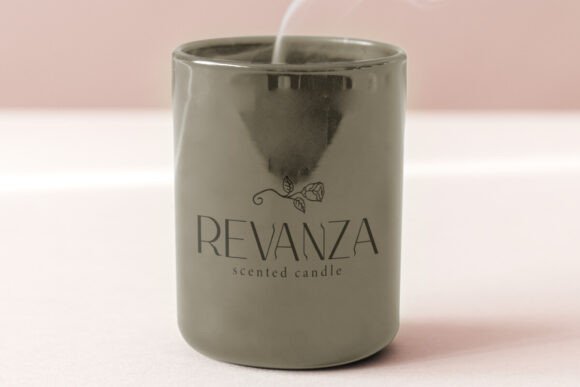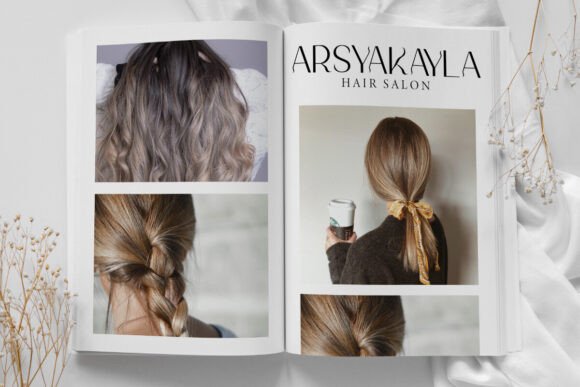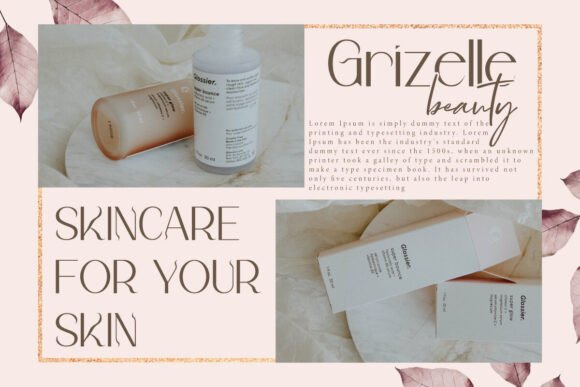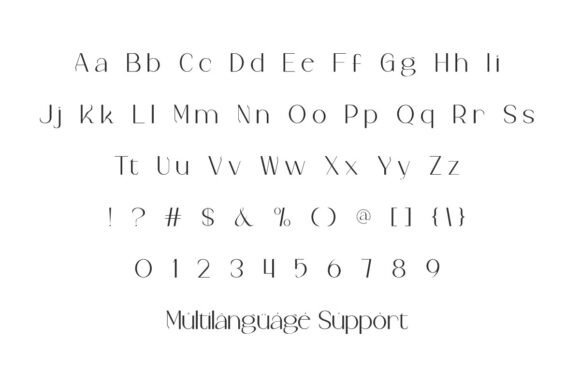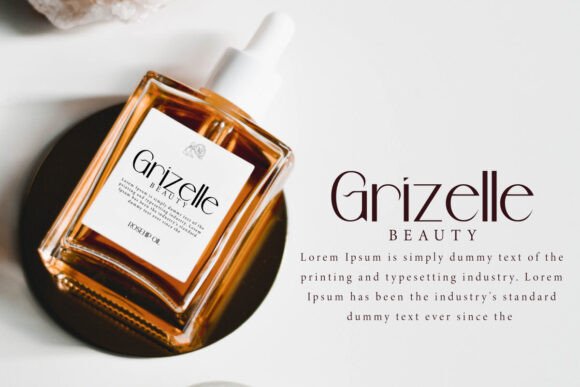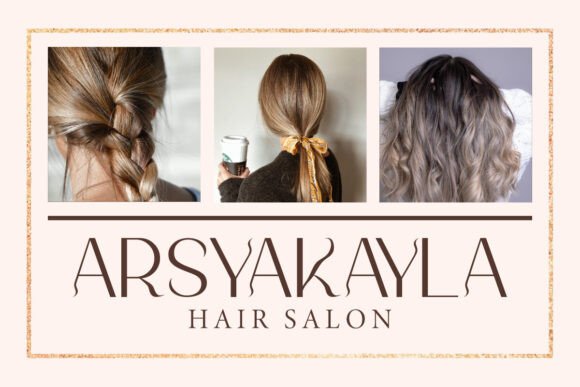
Discover the Timeless Elegance of Typography
Have you ever found yourself staring at a beautifully crafted design, wondering what makes it stand out from the crowd? It’s often the small details that make a big impact – in this case, the font used. For designers, finding the perfect font can be a game-changer, elevating a project from good to great. That’s where Belirium Font comes in – a stunningly elegant serif display font that’s sure to leave a lasting impression.
Belirium Font is more than just a font – it’s a key to unlocking the perfect design. With its luxurious and minimalist style, it’s perfect for a wide range of projects, from brand image to product packaging. Whether you’re a seasoned designer or just starting out, Belirium Font is an invaluable addition to your toolkit.
Belirium Font Key Features
- Character Set: The font includes a comprehensive set of characters, including uppercase and lowercase letters, numerals, punctuation marks, and special characters, making it suitable for various languages.
- Unique Characteristics: The font features a distinctive, hand-drawn design with subtle imperfections, giving it a unique and organic feel that sets it apart from other sans-serif fonts.
- Language Support: Belirium Font includes support for multiple languages, including Latin-based languages, Cyrillic, and Greek, making it a versatile choice for global applications.
Belirium Font Review
Overall, I found the Belirium font to be a solid addition to any design project. ✨ The font’s unique blend of modern and vintage elements makes it versatile and suitable for a wide range of applications, from digital products to print materials.
- ✨ Uniquely stylized letters that add character to any text
- ✨ Highly legible, even at smaller font sizes
- ✨ Well-suited for both digital and print use
- ✨ Includes a wide range of language support
- ⚠️ May be difficult to read in certain contexts, such as very small text or in low-contrast backgrounds
- ⚠️ Some users may find the font too ornate or distracting
- ⚠️ Limited customization options for those who want to further tailor the font to their project’s needs
Overall, I would recommend the Belirium font for projects that require a unique and visually appealing typography solution. While it may not be perfect for every application, its strengths make it a valuable addition to any designer’s toolkit.
Getting the Most Out of Belirium Font
For optimal results, use Belirium font in bold or italic styles to create visual emphasis. You can also pair it with other fonts to create a unique and eye-catching design.
Belirium font is ideal for use in:
– Titles and headings
– Creative and artistic projects
– Any project where a unique and stylish font is desired.
What is the recommended font size for using Belirium?
The recommended font size for using Belirium is between 12pt and 24pt. This range allows the font to be legible and visually appealing, while also providing enough contrast for different text sizes.